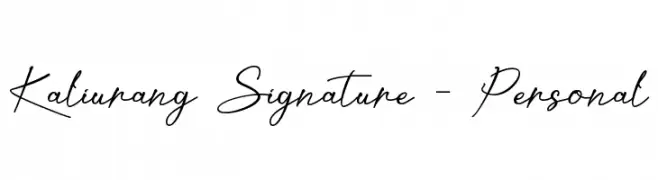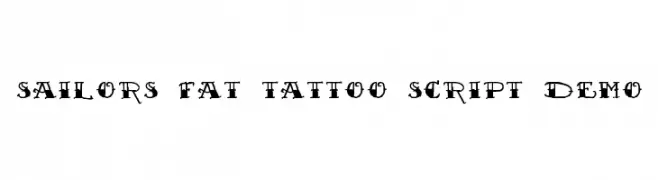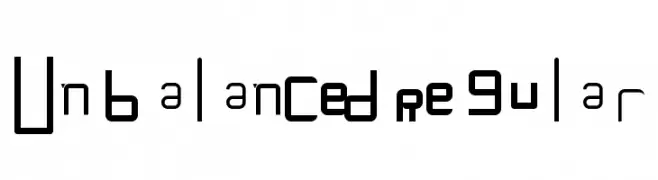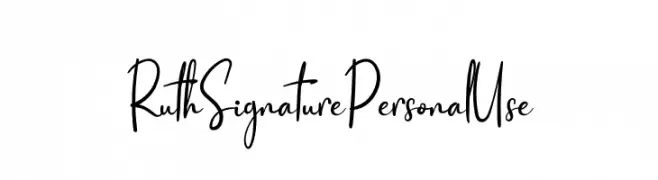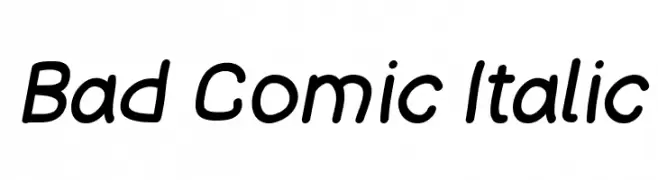
A lively handwritten font with fluid, dynamic strokes and a casual feel.
A fluid and graceful script font with a handwritten signature style.
A playful and flowing script font with smooth, connected strokes.
A bold, dynamic script font with fluid, energetic strokes and a handwritten feel.
A bold, decorative font with a vintage tattoo style.
An eclectic and experimental font with varied, unbalanced letterforms.
An elegant, flowing script font with dynamic curves and expressive strokes.
A handwritten, cursive font with fluid strokes and a personal touch.
A bold, playful handwritten font with smooth curves and consistent thickness.
A playful, handwritten italic font with rounded characters and consistent stroke width.